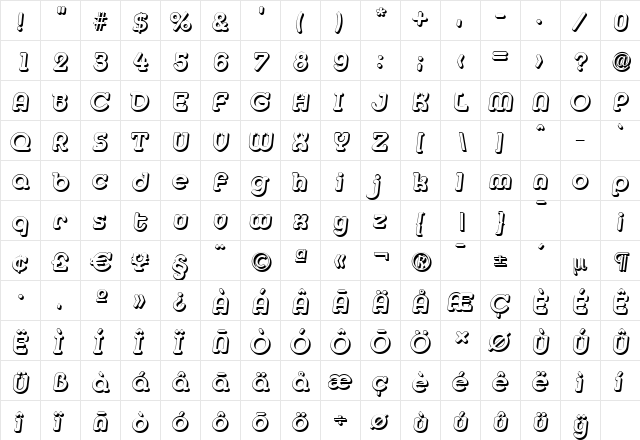
MexicoShadow BoldItalic
Foundry SoftMaker Software GmbH
DesignerSoftMaker Software GmbH
Design Context for MexicoShadow Typeface
MexicoShadow is built around its visual character rather than neutral utility — its distinctive forms are designed to make an impression at display sizes. The dynamic lean of this cut emphasises speed and emphasis in any layout. Its bold stroke weight gives it real presence on the page.